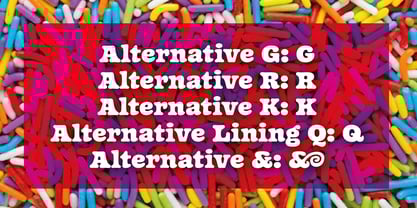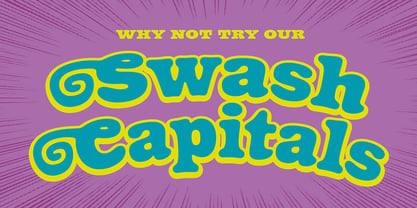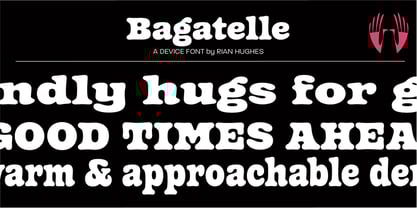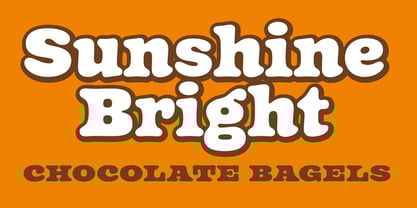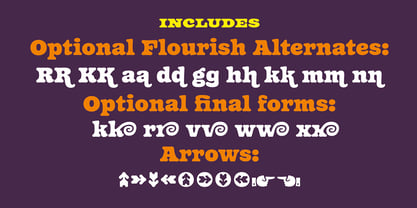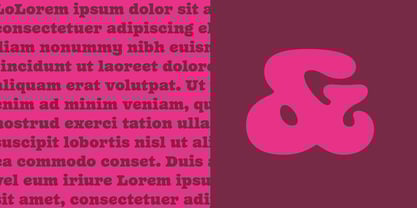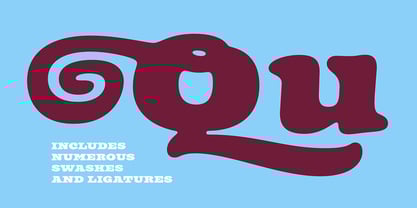
Bagatelle
by Device
The Bagatelle Font Family was designed by Rian Hughes and published by Device. Bagatelle contains 3 styles and family package options.
Bagatelle began as an attempt to add a lower-case to Freehouse, but swifty developed into a design all its own. It owes something to Oz Cooper and his eponymous Cooper Black and the Cooper-inspired Goudy Heavy, Frederic Goudy’s 1925 riposte for Lanston Monotype. The rounded bracketed serifs are a feature of both Freehouse and ITC’s American Typewriter, which was designed in 1974 when the friendly Cooper styles were undergoing a huge resurgence.
The family comes in three widths, each with swash capitals that can be globally toggled on or off in the Opentype panel of graphics applications or chosen individually from the Glyphs palette. There are also stylistic sets that offer alternate versions of the K, R, a, d, h, k, m and n with extended tails, a single-story g, a lining (i.e. without a tail that descends below the baseline) Q suitable for tight leading, straight-legged versions of the K and R, Qu and Th ligatures, and swash final characters for the k, r, v, w and x. (These final swash characters are not inteded for use in the middle of a word.) A set of arrows and manucules are also included.
Bagatelle is warm, approachable and full of life.